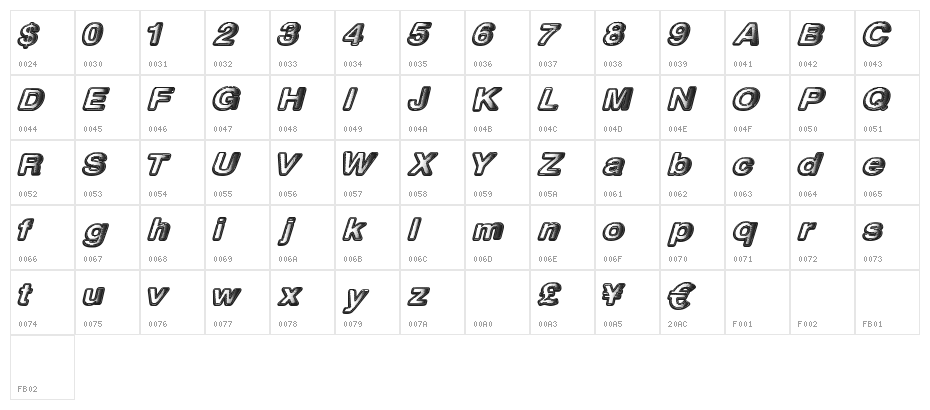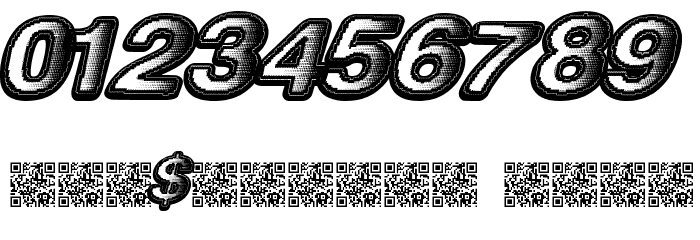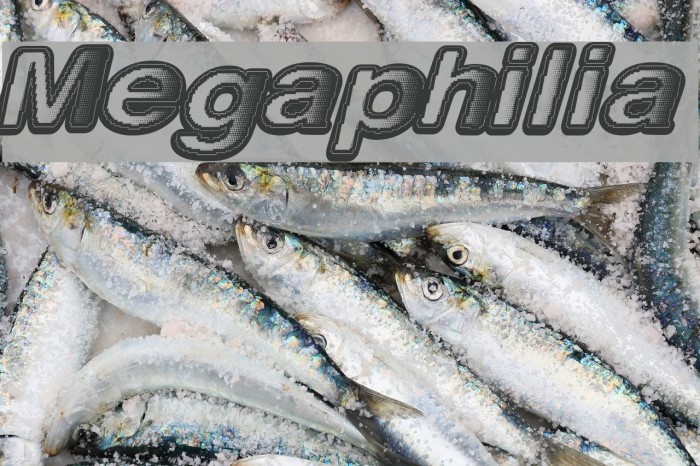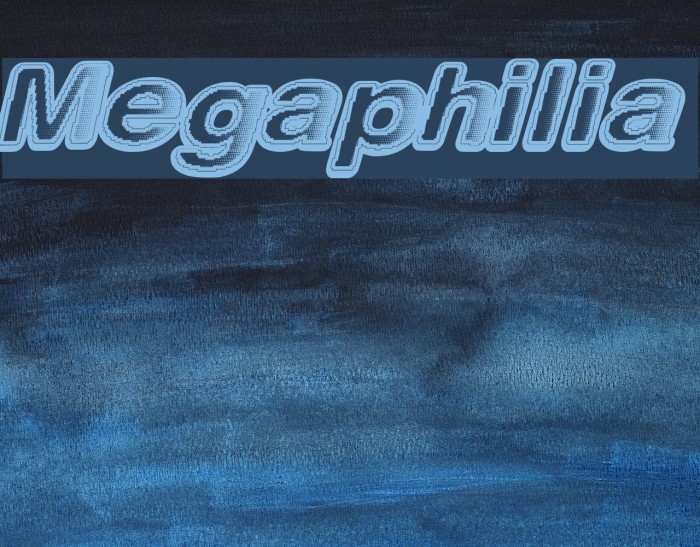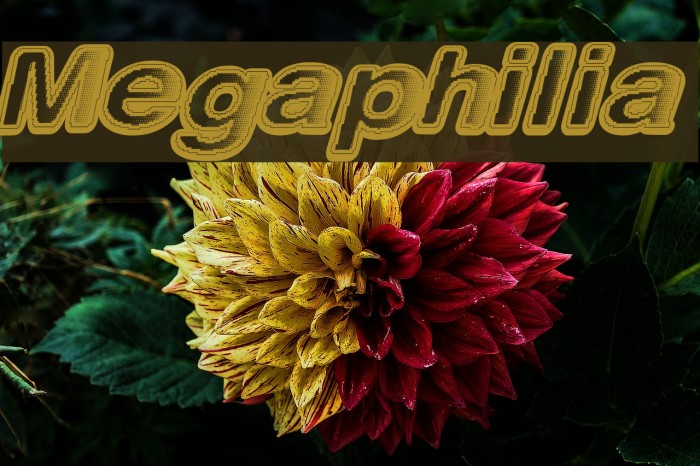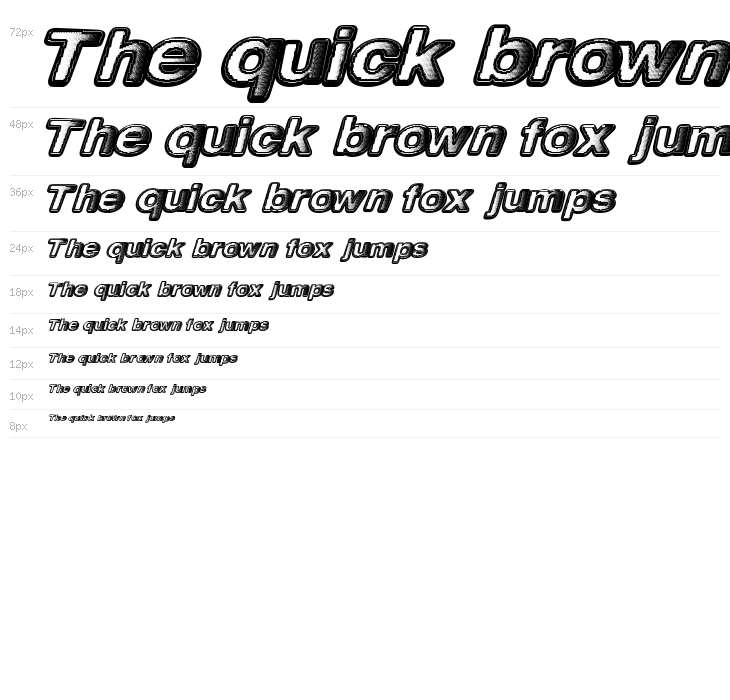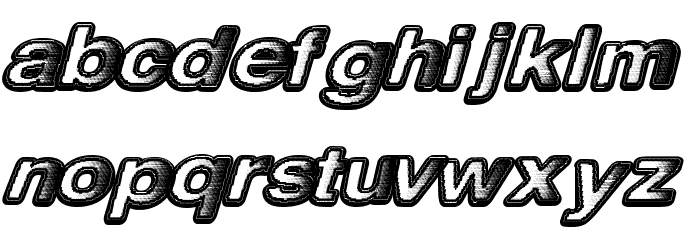
Megaphilia Font
Megaphilia Description
This font features a bold, three-dimensional appearance with a distinct outline and shadow effect, giving it a dynamic and impactful look. The characters are slightly italicized, adding a sense of motion and energy. The uppercase and lowercase letters maintain a consistent style, with rounded edges and a smooth, flowing design. The numerals and special characters follow the same aesthetic, ensuring uniformity across all elements. This font's unique style makes it stand out, making it ideal for projects that require a strong visual presence.
MEGAPHILIA UPPERCASE
MEGAPHILIA LOWERCASE
MEGAPHILIA OTHER CHARS